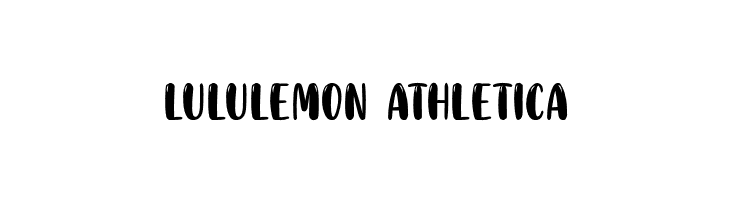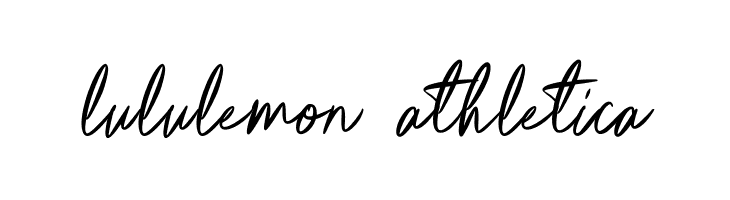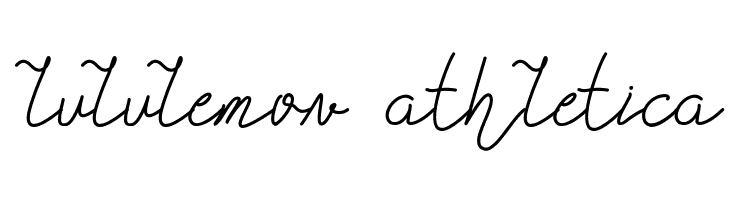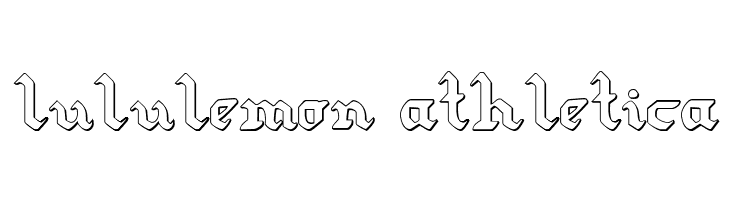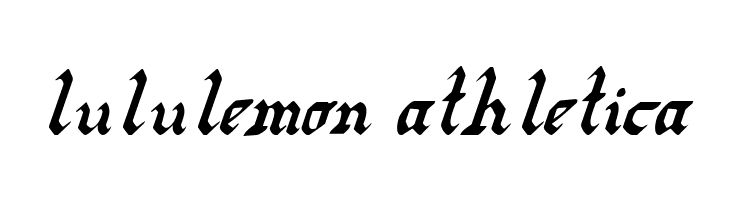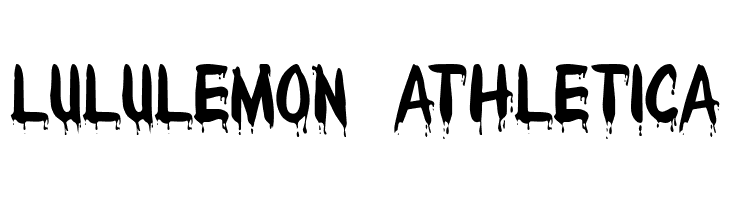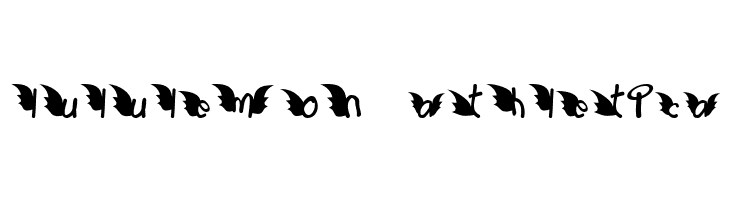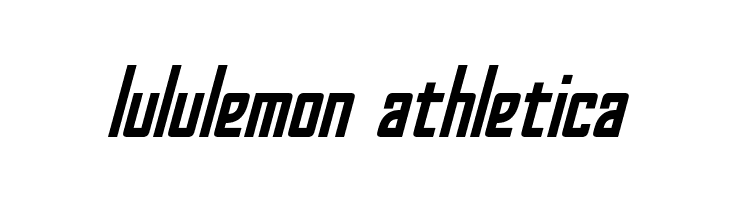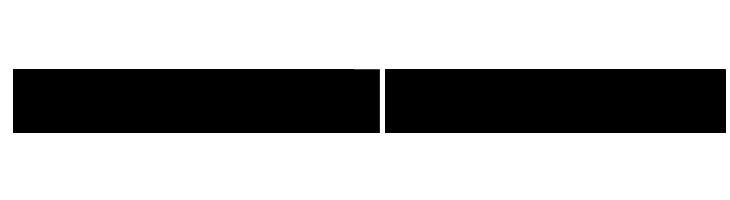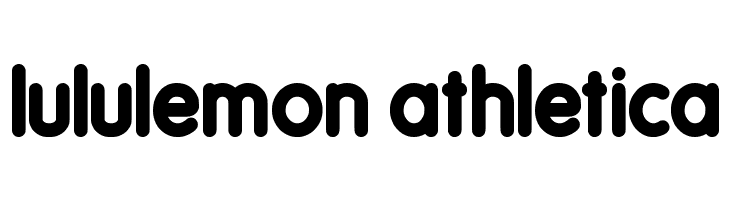
A playful, casual handwritten font with smooth, flowing lines.
A bold, 3D sans-serif font with a shadow effect for modern, eye-catching designs.
A flowing, elegant script font with smooth, connected strokes.
A bold, dynamic font with a 3D shadow effect and tight spacing.
Bold, three-dimensional uppercase font with a strong, dynamic presence.
A bold, geometric font with thick strokes and a strong presence.
A bold, italicized font with a dynamic and energetic style.
A bold, italic, and condensed font with a modern and dynamic style.
A bold, distressed font with a rugged, grunge-like texture.
A font that replaces all characters with black rectangles.
A bold, flowing script font with a handwritten, marker-like appearance.
A wavy, abstract font mimicking redacted text with a modern, artistic style.
An abstract, fluid script font with dynamic strokes and artistic flair.
A fluid and elegant script font with a handwritten style.
A modern, cursive handwritten font with elegant, flowing lines.
A flowing, cursive font with elegant, sweeping strokes and a handwritten appearance.
A bold, expressive script font with flowing, cursive letterforms.
A dynamic and fluid script font with elegant, flowing lines.
A bold, dynamic script font with expressive, flowing letterforms.
A playful, bold script font with a handwritten feel and whimsical flourishes.
A modern, playful font with bold, rounded characters and a whimsical touch.
A playful, festive handwritten font with bold, rounded characters.
A bold, blackletter-style font with sharp, angular lines and intricate detailing.
A bold, condensed Blackletter-style font with intricate, gothic-inspired characters.
A bold, condensed, and italicized font with high contrast and calligraphic elements.
A bold blackletter font with sharp, angular lines and historic elegance.
A bold, italic font with angular strokes and a calligraphic flair.
A bold, italic, calligraphic font with high contrast and ornate details.
A bold blackletter font with ornate, sharp angles and dramatic strokes.
A bold, shadowed Blackletter-style font with intricate detailing.
A bold, italicized font with a shadow effect and sharp angles.
A playful and whimsical font with quirky, irregular letterforms.